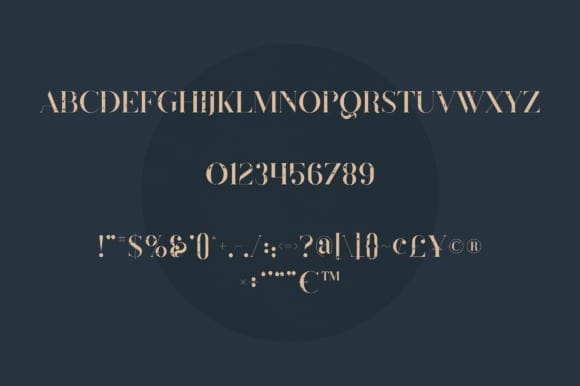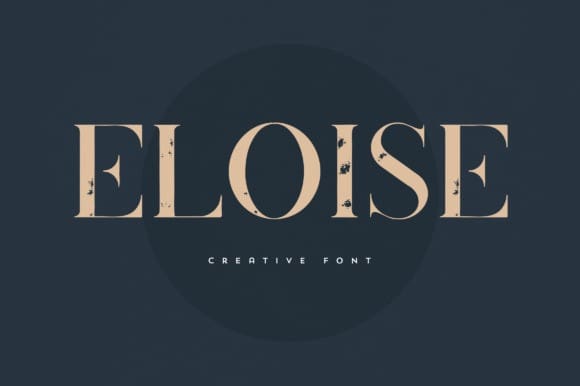
Eloise Font
Eloise Font is an elegant and versatile serif font that will make your typography truly unique! It will enchant every logo, branding, headline, or plain text!